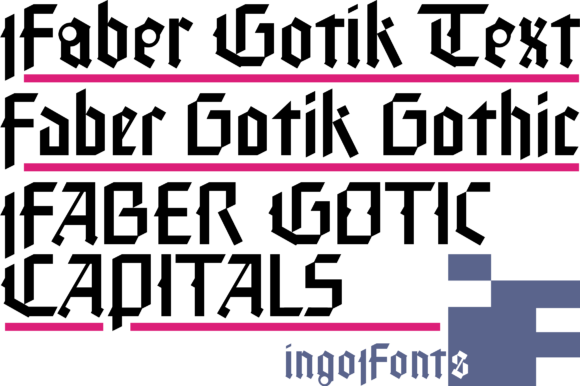
Journey into the realm of awe-inspiring design with Faber Gotik, a blackletter font family meticulously crafted by ingoFonts. This contemporary rendition of a classic Gothic font will ignite your creativity, transforming your design concepts into captivating masterpieces.
Faber Gotik's bold and striking presence commands attention, leaving an indelible mark on any project it graces. Its sharp edges and dynamic curves dance together in perfect harmony, captivating the audience with their elegance and sophistication.
Unleash the boundless versatility of Faber Gotik and explore a world of creative possibilities. Its timeless appeal transcends genres, seamlessly adapting to a myriad of design styles. Whether you seek to craft eye-catching logos, captivating posters, or alluring social media graphics, Faber Gotik will effortlessly elevate your creations.
Indulge in the rich history and tradition embedded within Faber Gotik's blackletter roots. This font family pays homage to the past while embracing the present, creating a unique fusion that resonates with both classic and contemporary aesthetics.
Experience the transformative power of Faber Gotik and embark on a design journey like no other. Let your imagination soar, as this font family becomes your trusted ally in crafting truly unforgettable designs that leave a lasting impression.